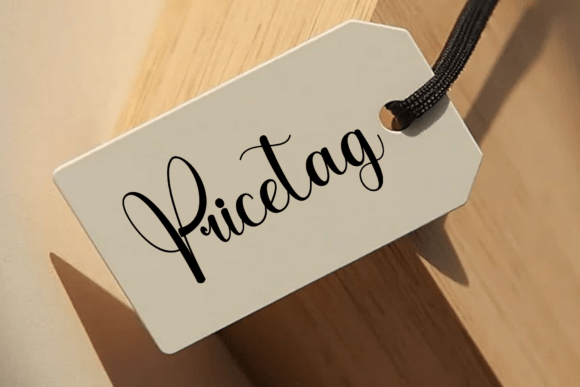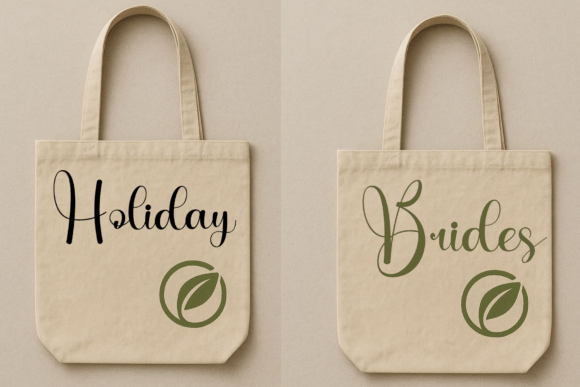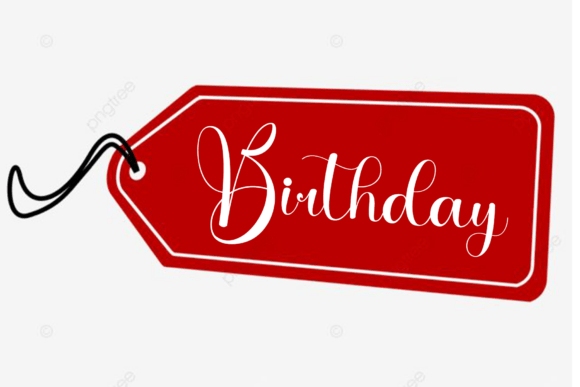
The Perfect Script for a Beautiful Brand Story
There’s nothing quite like the rush of creative discovery – the moment when a new typeface comes along and makes you rethink the way you approach branding and design. For me, that moment arrived when I stumbled upon Husbands Font, a sophisticated and rhythmic script font that has been revolutionizing the world of artisanal food branding, boutique product packaging, and upscale lifestyle marketing.
This beautifully crafted font is designed to evoke a sense of customized, artisanal artistry, with its sweeping, looping ascenders and high-contrast visual rhythm. Whether you’re looking to add a touch of elegance to your packaging or create a unique editorial title, Husbands Font is the perfect choice for designers who crave a premium, high-end look.
- Unique Characteristics: The font features a distinctive, modern design with a blend of clean lines and subtle flair, making it perfect for creating eye-catching headlines and titles.
Husbands Font Review
I recently had the chance to work with the Husbands font, and I have to say it’s been an interesting experience. Here are my honest thoughts.
- The Husbands font has a unique, hand-drawn feel that can add a touch of personality to your designs.
- It comes in a range of weights, from light to bold, making it suitable for various typography needs.
- The font is highly legible, even at smaller sizes, making it a good choice for body text.
- The Husbands font may not be the best choice for formal or professional designs, as its casual, handwritten feel may come across as unpolished.
- The font’s irregularities can make it difficult to pair with other fonts, as it may disrupt the overall balance of your design.
- Some users may find the font’s character set to be limited, which can be a drawback for those who need to support multiple languages.
The Husbands font is a great choice for designers who want to add a touch of whimsy and personality to their designs. However, it may not be the best fit for every project, and its limitations should be carefully considered before making a decision.
Use Husbands Font to add a touch of elegance and sophistication to your designs. Experiment with different font sizes, colors, and combinations to achieve unique effects.
Husbands Font is ideal for wedding invitations, formal event materials, and high-end branding materials. It can also be used in creative projects, such as book covers and magazine layouts.